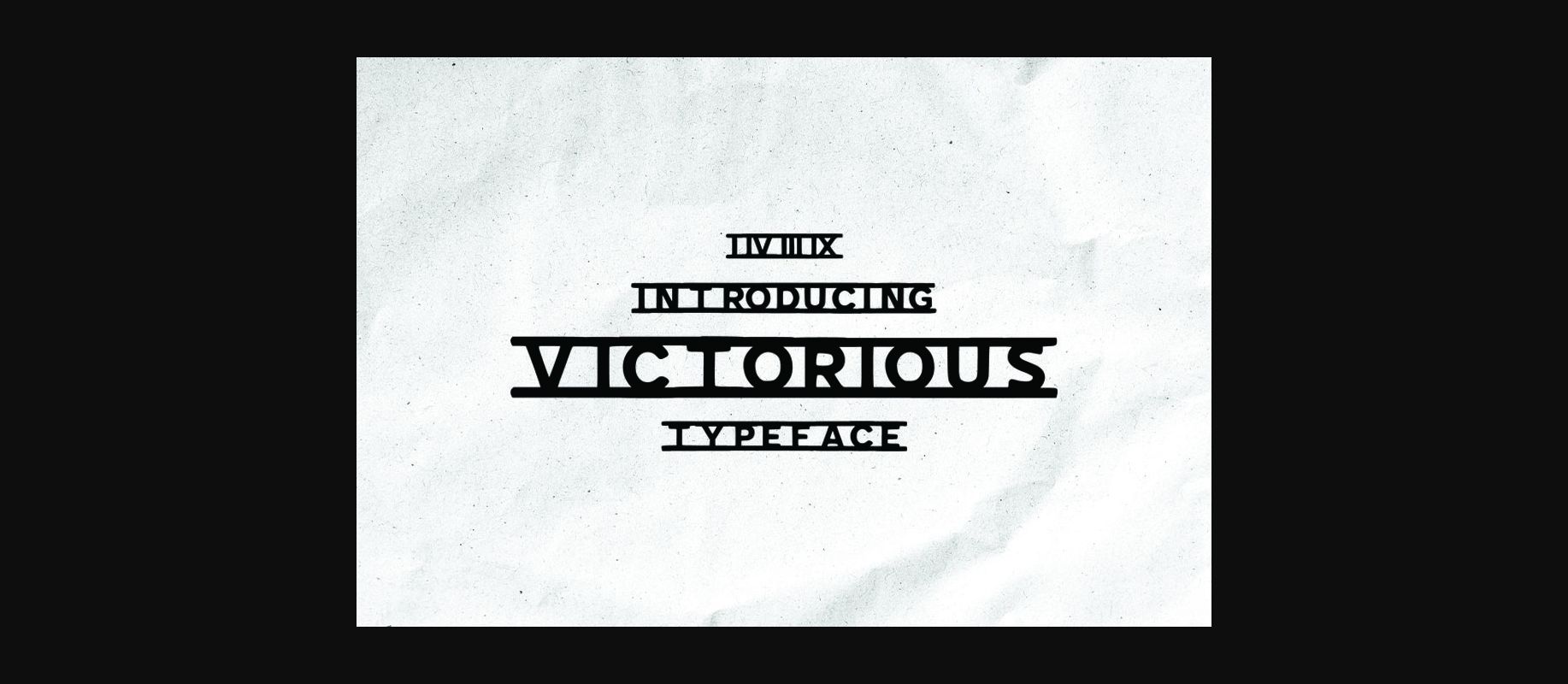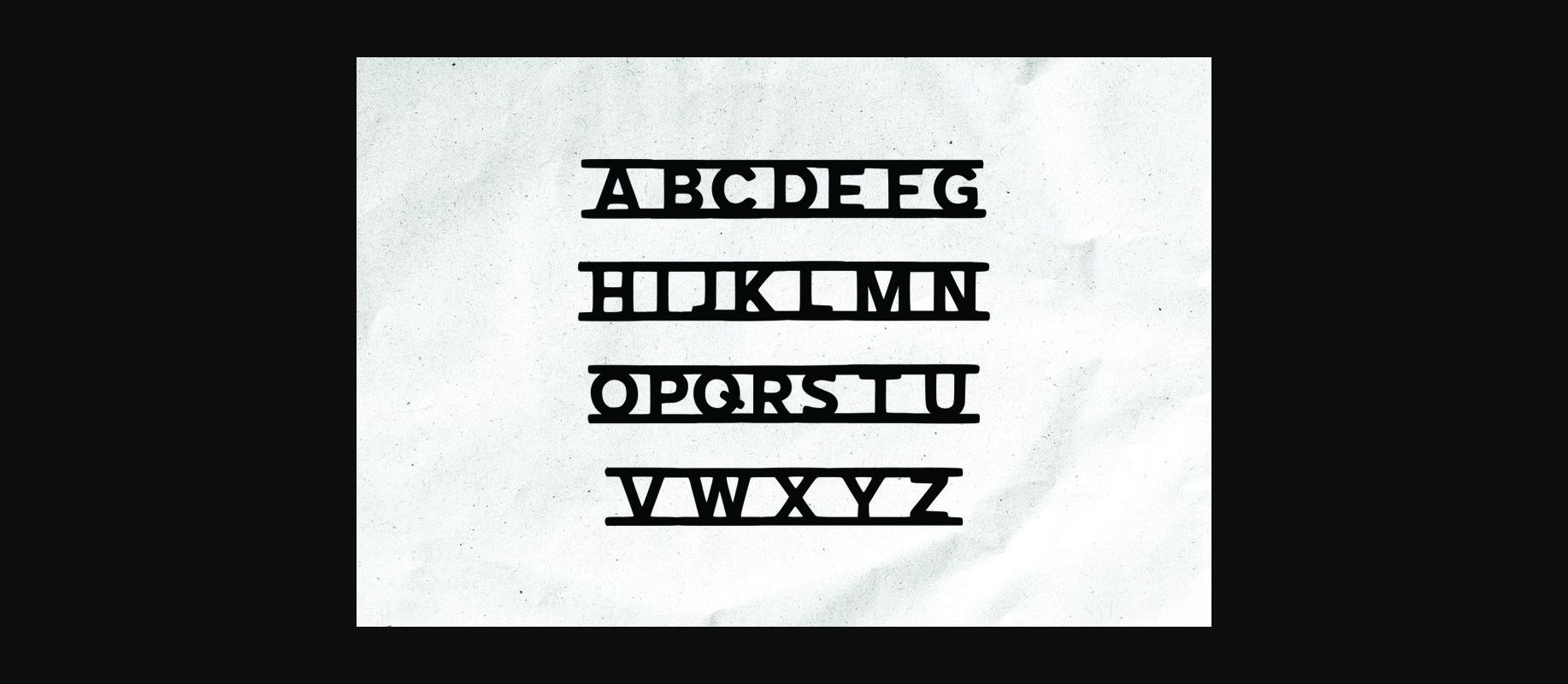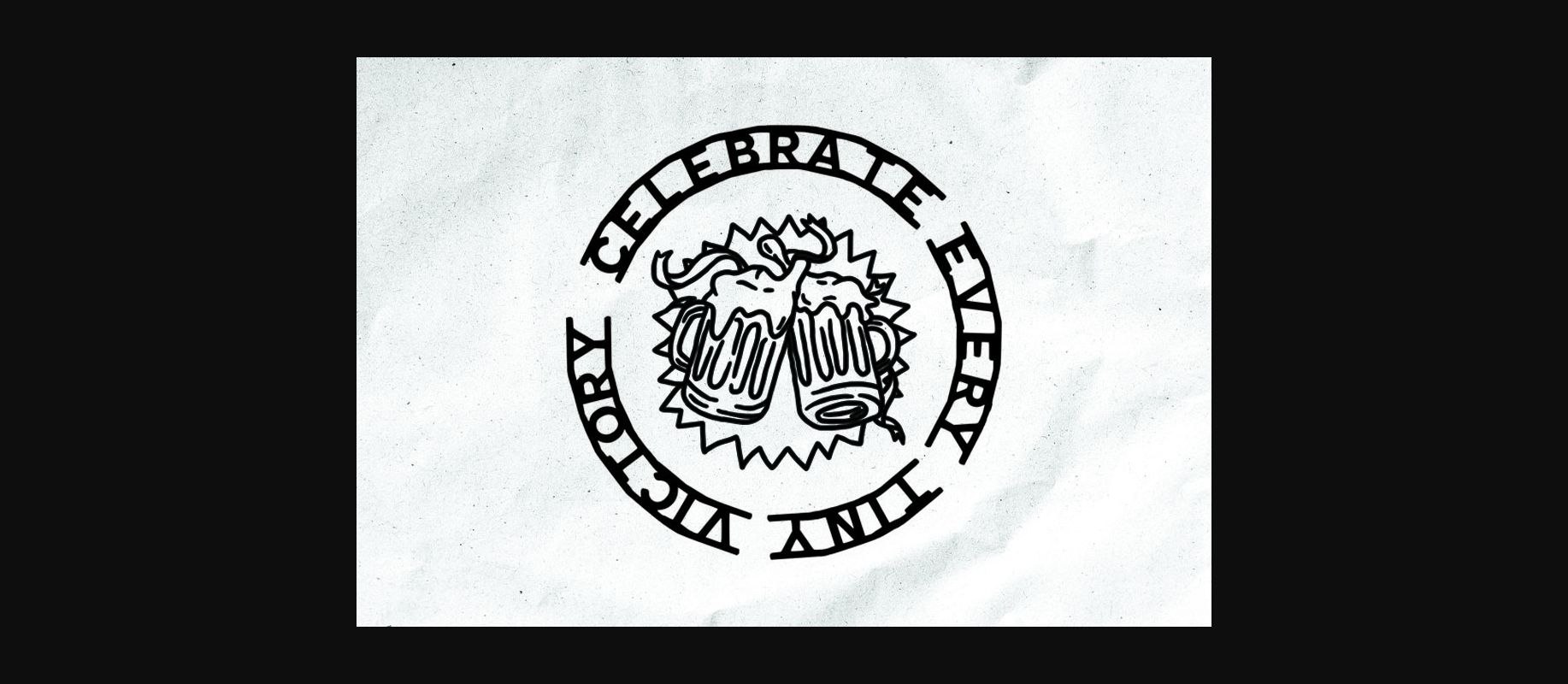
About Victorious Font
Victorious is a vintage styled, bold and simple decorative font. Whatever the topic, this font will be a wonderful asset to your font library, as it has the potential to enhance any creation.